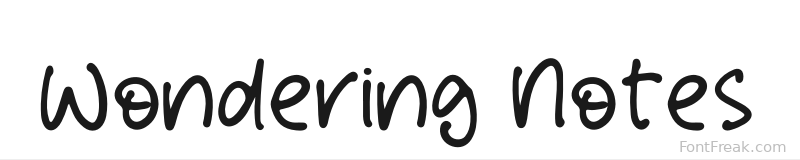
Wondering Notes
About Wondering Notes
Wondering Notes is a charming handwritten font created by Perspectype Studio in 2021. This decorative typeface stands out for its playful and whimsical design, making it an excellent choice for various creative projects. The font features a light stroke weight with a relaxed contrast, giving it an airy feel that is both inviting and approachable. Its spacing is thoughtfully designed to enhance readability while maintaining a casual, handwritten aesthetic. Decorative elements, such as rounded edges and occasional playful flourishes, contribute to its unique character.
This versatile font is perfect for a range of use cases. It shines in wedding invitations, where its personal touch adds warmth and charm. For restaurant menus, Wondering Notes can evoke a friendly atmosphere that resonates with diners, making it an ideal choice for cafes and bistros. Additionally, its playful nature makes it suitable for children’s book covers, where it can capture the imagination of young readers. Content creators can also leverage this font for social media graphics, adding a touch of whimsy to posts and promotions.
The target audience for Wondering Notes includes graphic designers looking for a fresh, handwritten option, small business owners seeking to create a unique brand identity, and content creators wanting to enhance their visual storytelling.
What makes the Wondering Notes font stand out is its ability to blend a casual, handwritten style with versatility, allowing it to adapt to various projects while maintaining its distinct personality. With its freeware license, it offers an accessible option for anyone in need of a charming and expressive typeface. Consider the Wondering Notes font free download to elevate your next creative endeavor and infuse it with a sense of whimsy and warmth.